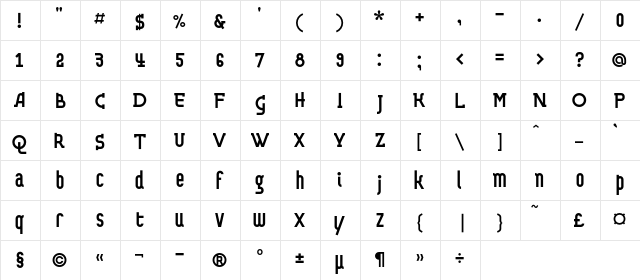
DveKruglyhC Regular
Design Context for DveKruglyhC Typeface
DveKruglyhC takes a measured approach to typography — its balanced proportions and neutral character make it a reliable workhorse for both digital and print work.